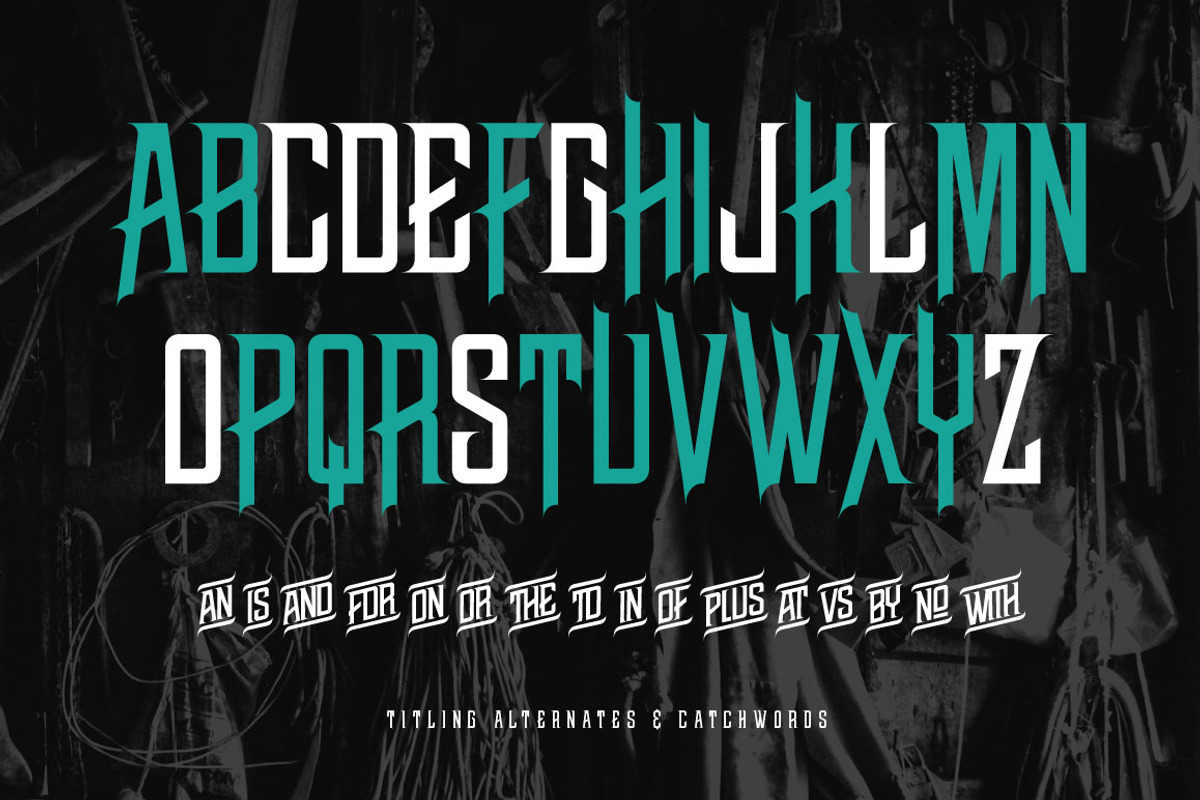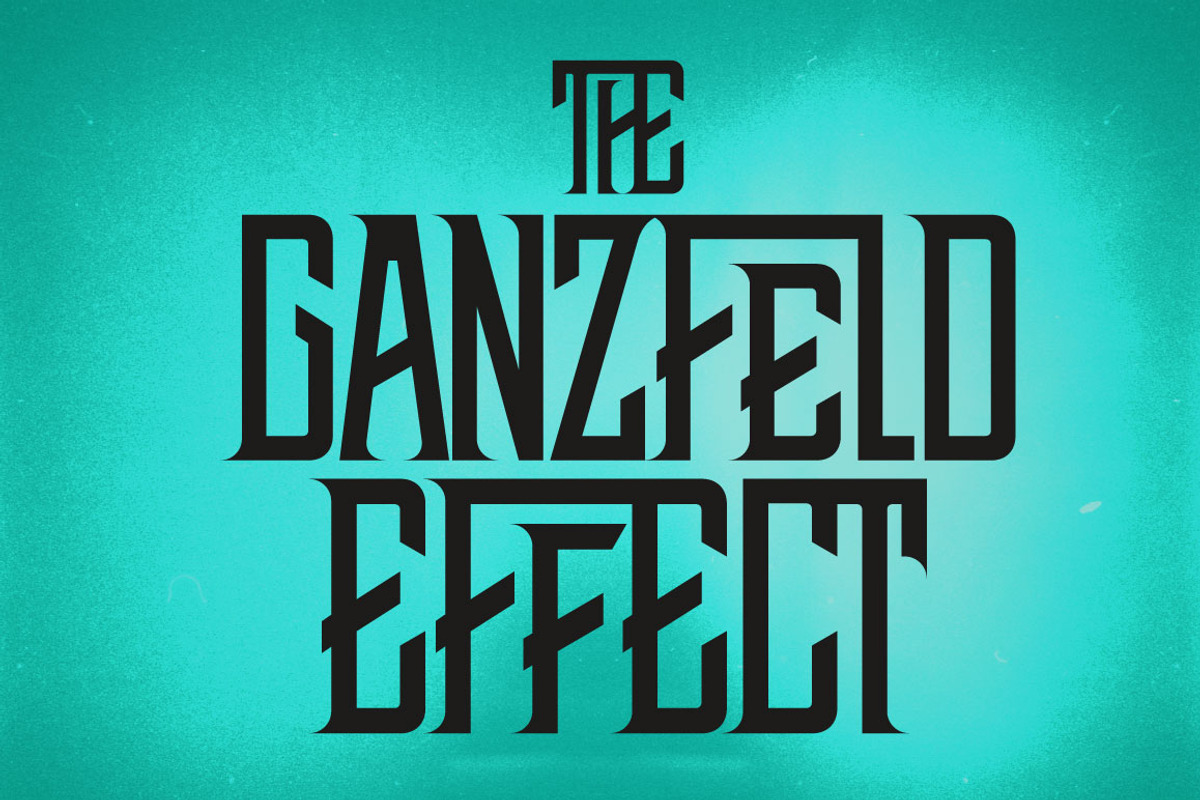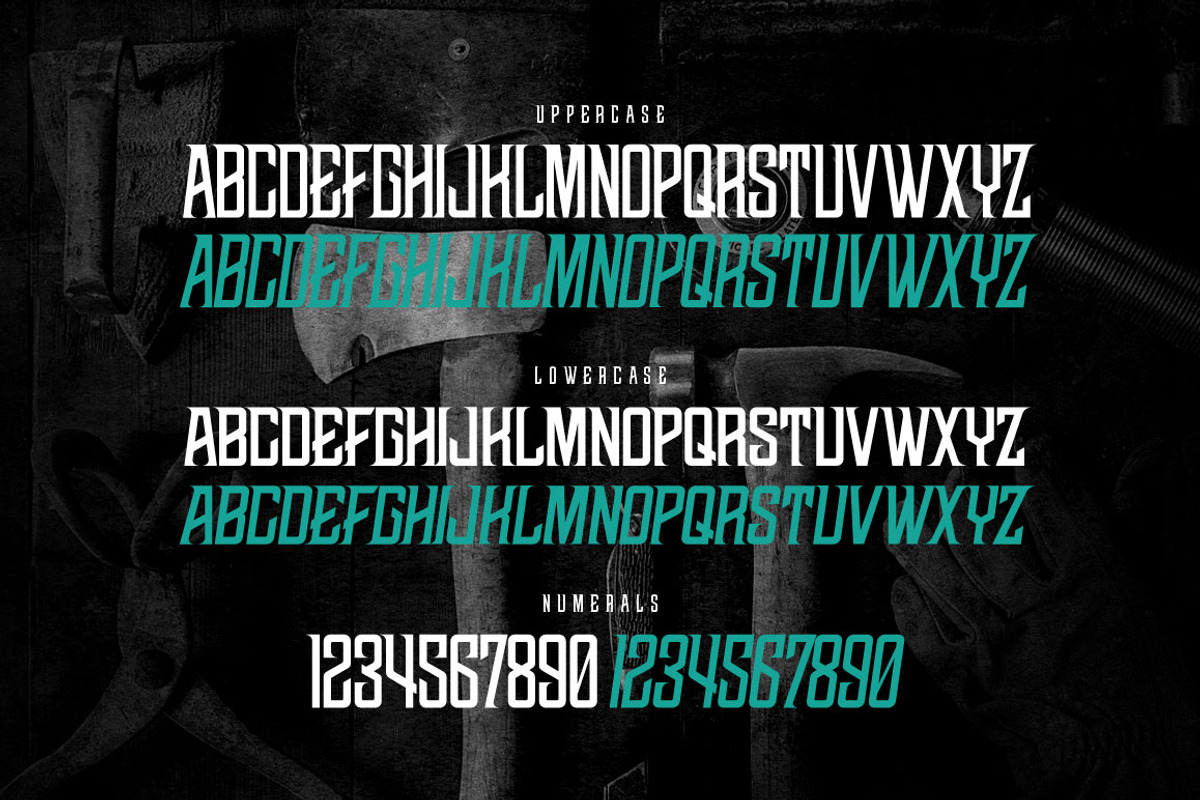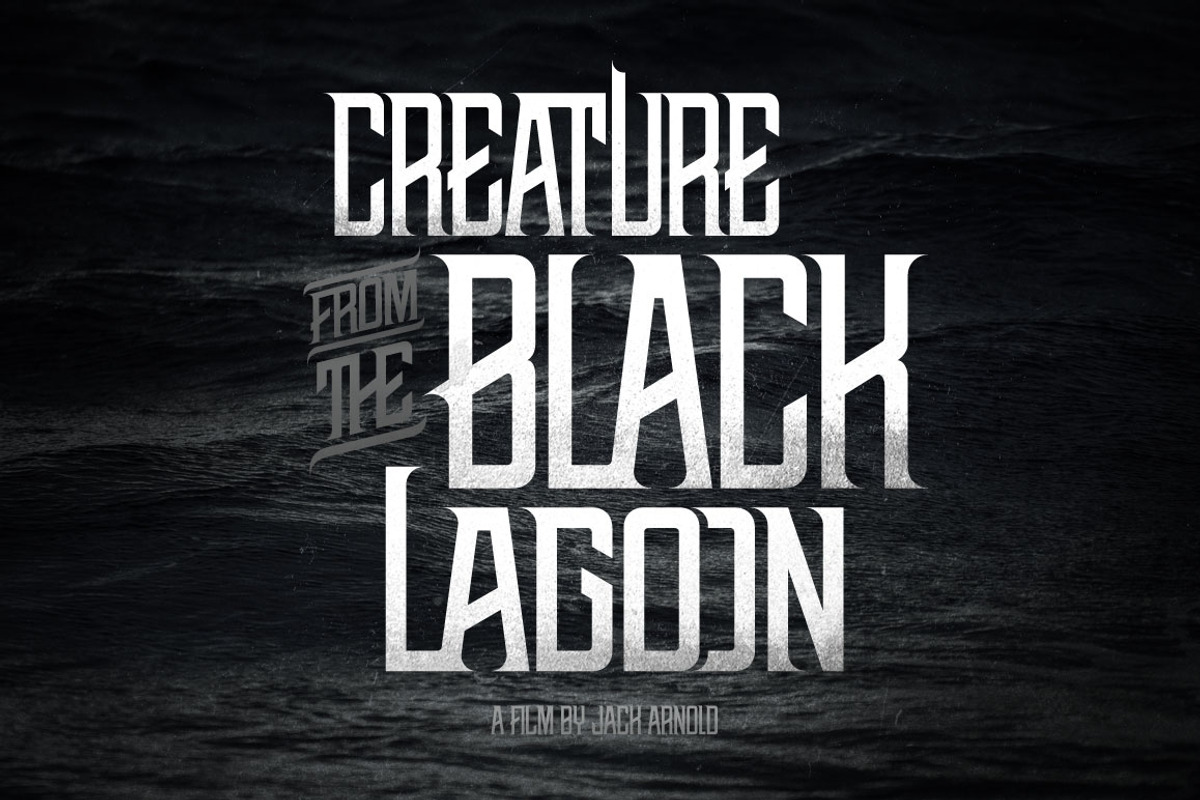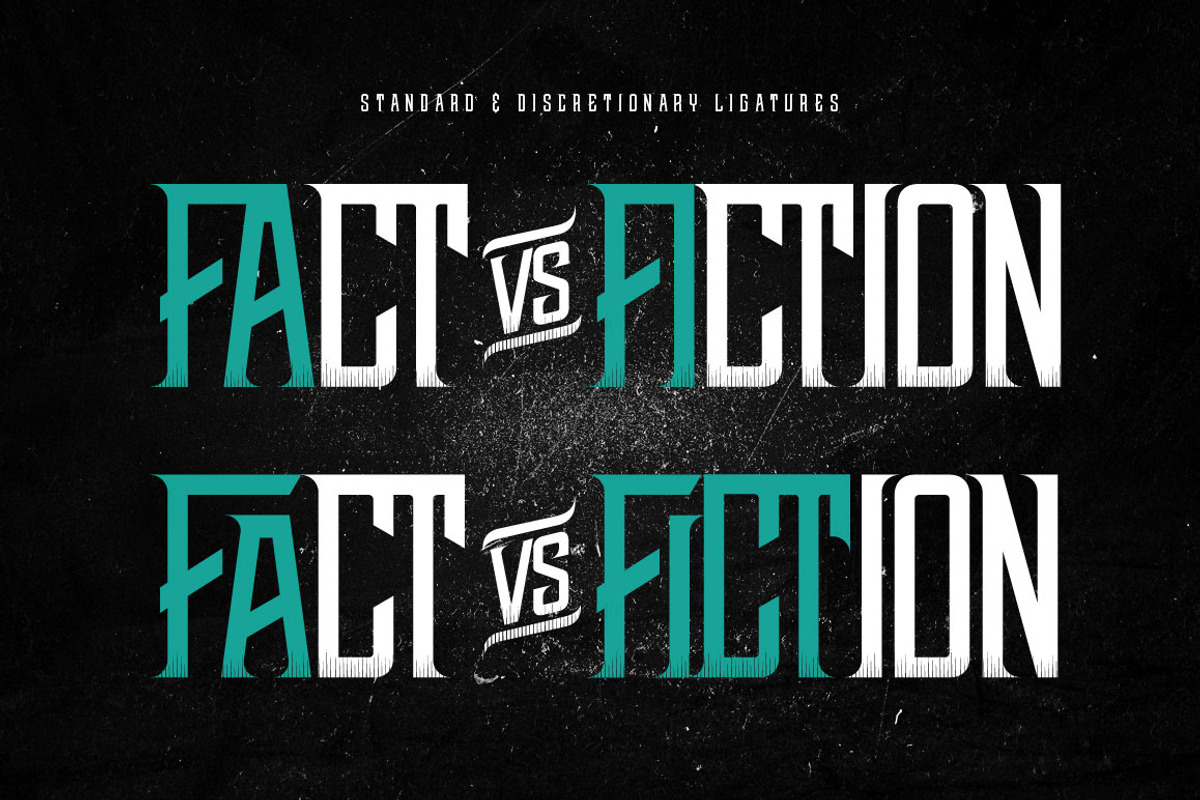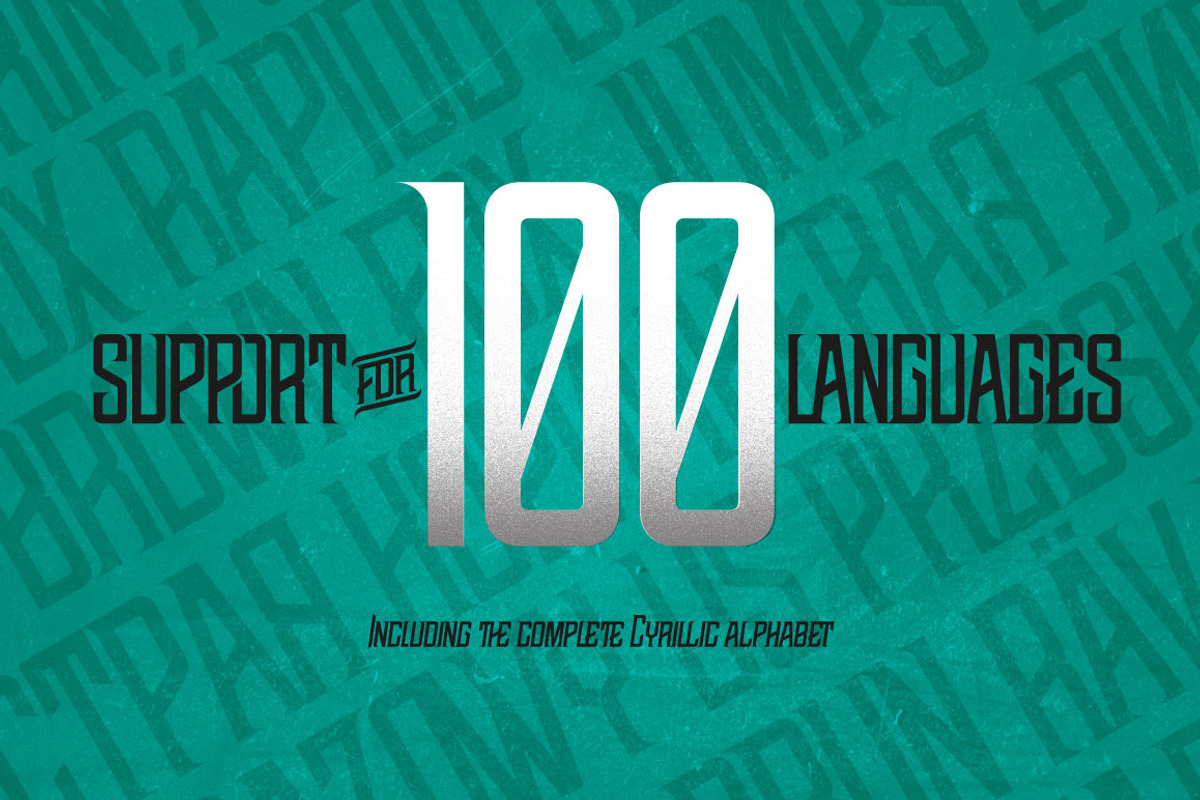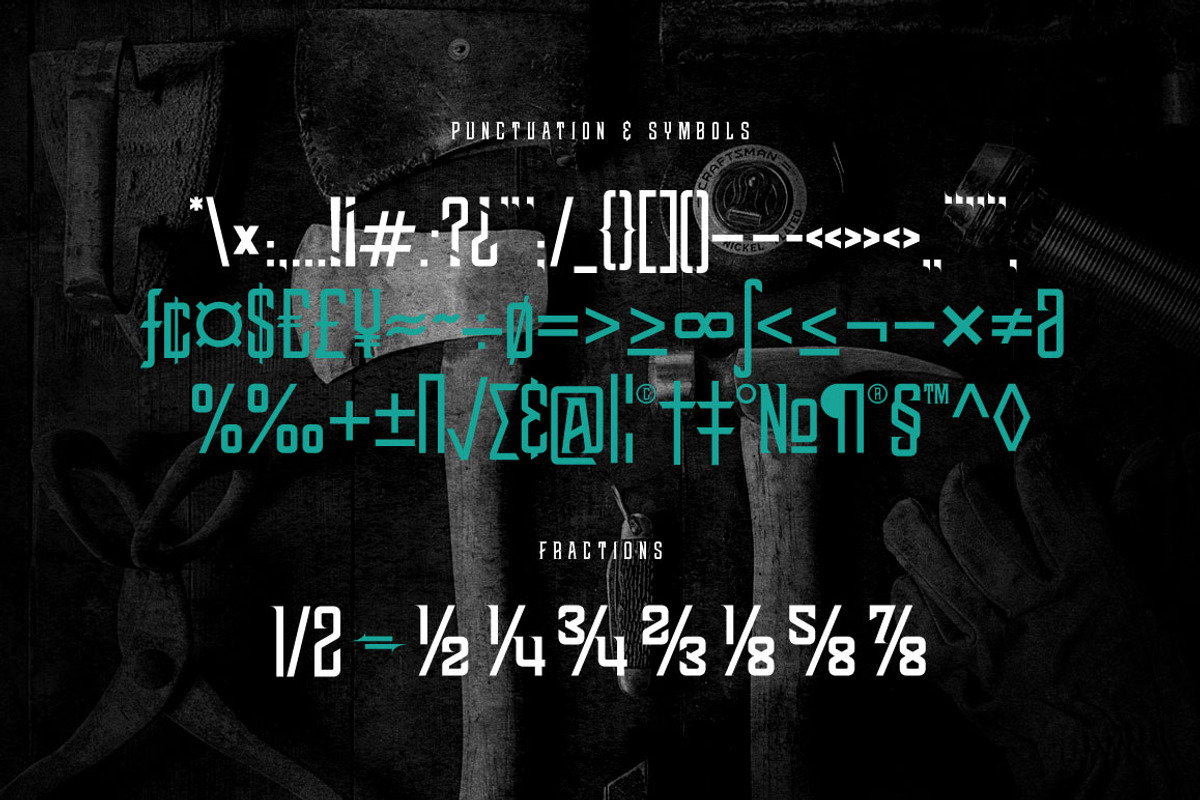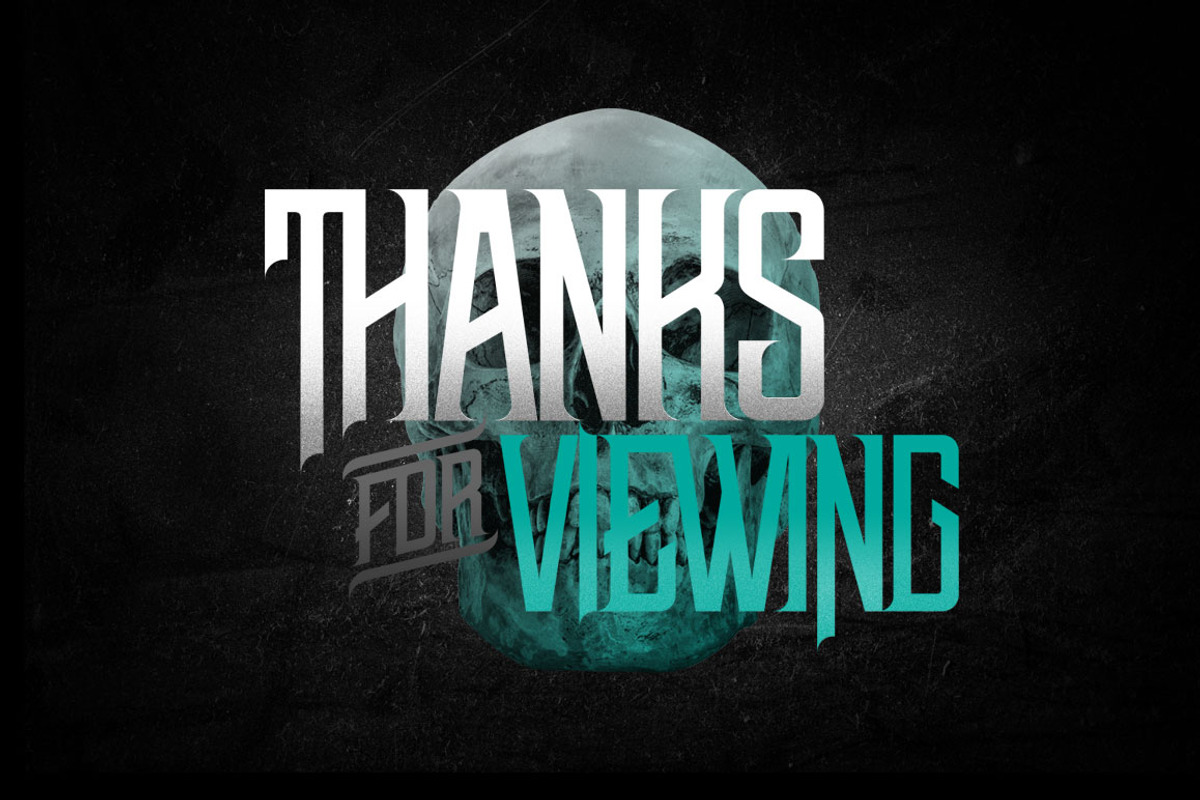
NWB Marvis Display Pro
NWB Marvis Display Pro is a vintage display typeface with a contemporary feel. Late 19th century aesthetics inspired its' design, but it is equally suitable for modern design applications. Featuring over 290 ligatures, 1357 total glyphs, context sensitive alternates, and 35+ catchwords , it allows for deep typesetting customization options for poster headlines, movie titles, product labels, and brand identities.
- Upper & Lowercase alphabet (Regular and Slant) + Catchwords
- Numbers, Punctuation, Symbols & Fractions
- Contextual Alternates (the most suitable glyph will automatically insert depending what you type)
- Standard & Discretionary Ligatures
- Titling Alternates (including special ligatures using them)
- Stylistic Sets
- Support for 100 languages including the Cyrillic Alphabet (see list below)
- Bonus Extras including lines, arrows and the hatching effect used in the display images